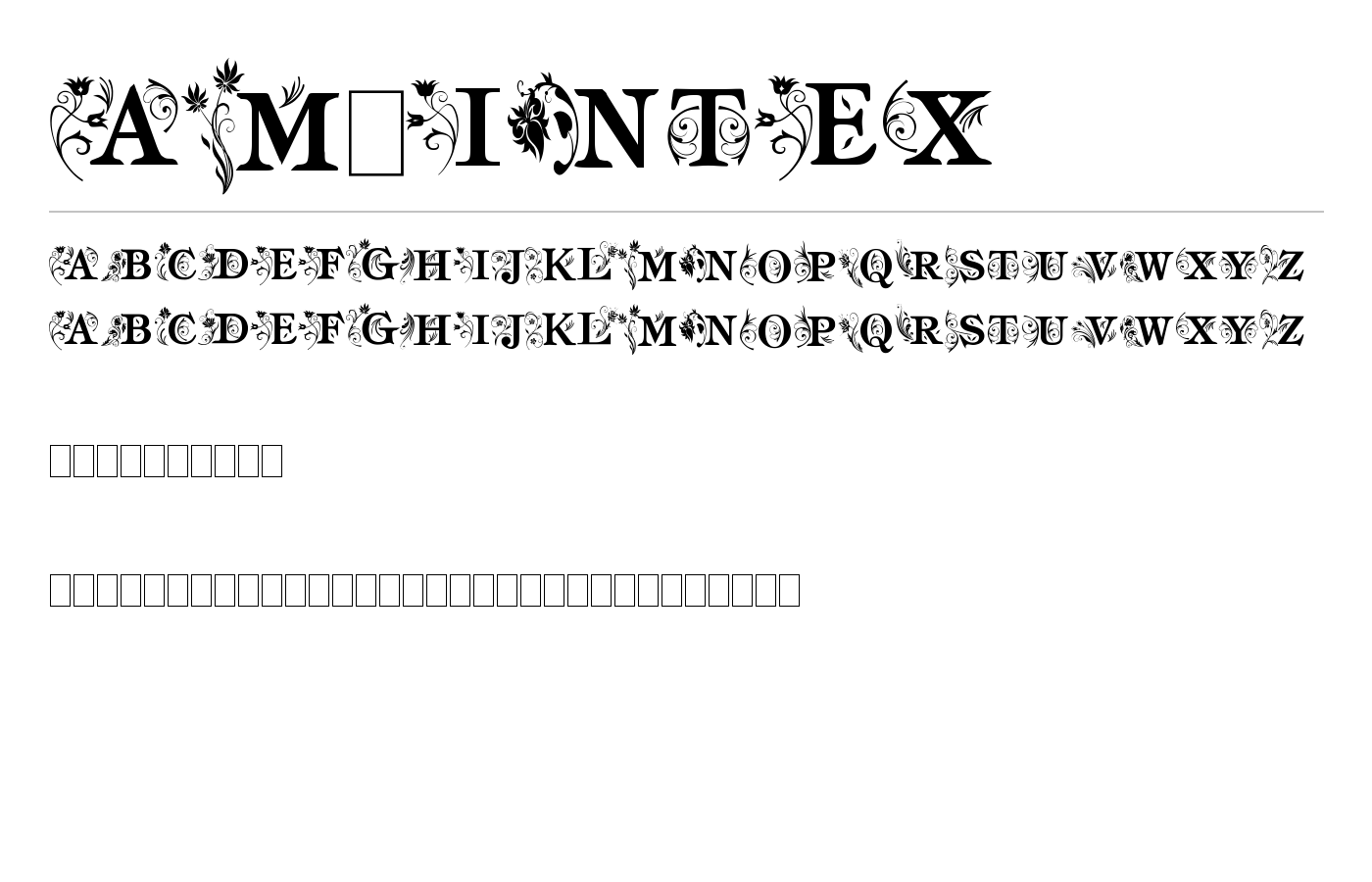
Am_intex is an ornate serif display font characterized by intricate floral and vine embellishments that wrap around its bold, high-contrast letterforms. This decorative typeface exudes a vintage and elegant charm, making it ideal for creating luxurious logos, invitations, and artistic headlines where a dramatic and refined aesthetic is desired. Its elaborate style works best in designs that call for a distinctive, eye-catching flourish rather than extended body text.
am_intex Font
About am_intex Font